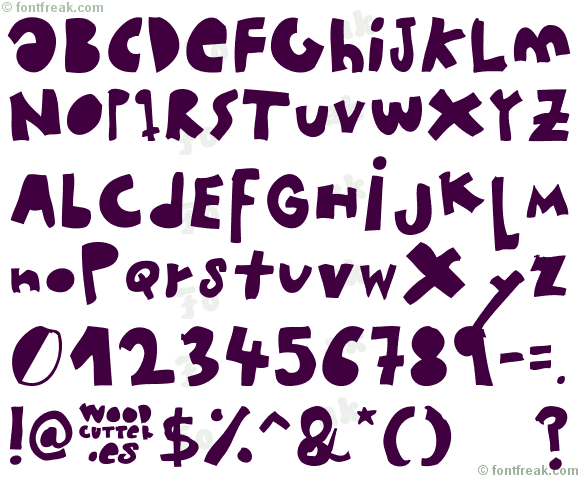
woodcutter MMXII
The woodcutter MMXII font, created by woodcutter Manero, is a distinctive display typeface that captures a playful yet rugged aesthetic. This font features irregular stroke weights and a unique, hand-crafted appearance that evokes the charm of artisanal typography. Its varying contrast gives each character a dynamic quality, making it visually engaging while maintaining readability. The spacing between letters is thoughtfully designed, allowing for a balanced flow that enhances its quirky character. Decorative elements are minimal, allowing the inherent whimsy of the font to shine through.
The woodcutter MMXII font is ideal for a variety of creative applications. It works exceptionally well in crafting eye-catching movie posters, where its playful nature can convey a sense of fun or adventure. Additionally, it's a great choice for restaurant menus, particularly for eateries that want to project a cozy, rustic vibe. The font is also suitable for event flyers, especially those related to outdoor festivals or artisan markets, where its unique style can attract attention. Furthermore, it can be effectively used in branding for small businesses that wish to communicate a friendly, approachable image.
What sets the woodcutter MMXII font apart is its ability to blend a rustic charm with modern design sensibilities, making it an excellent choice for projects that require a touch of personality. Its unique character and approachability resonate well with audiences, ensuring that any message conveyed through this font leaves a lasting impression.